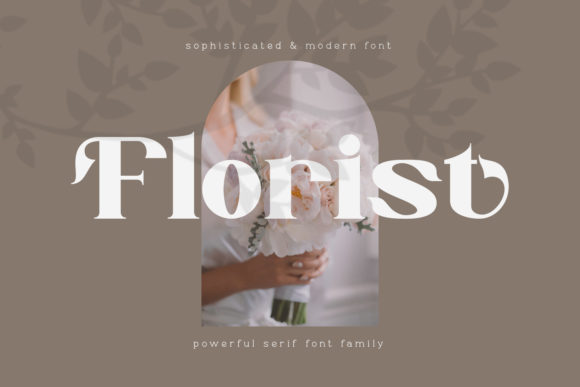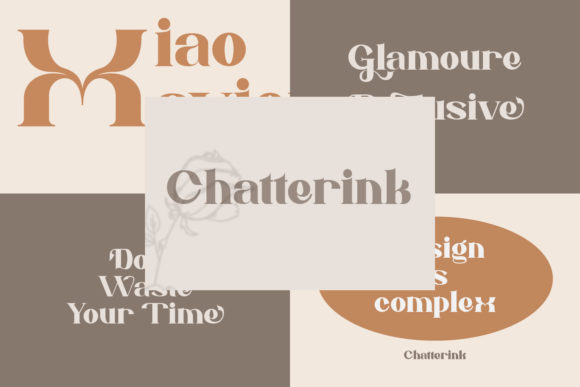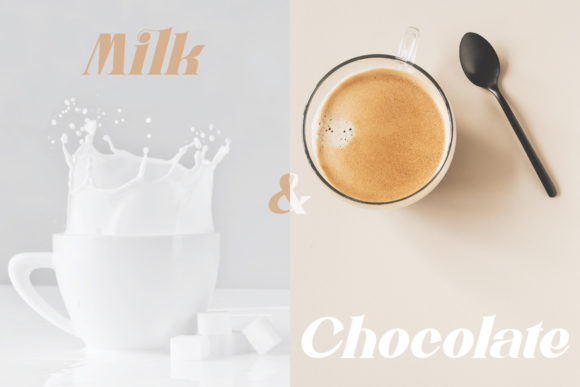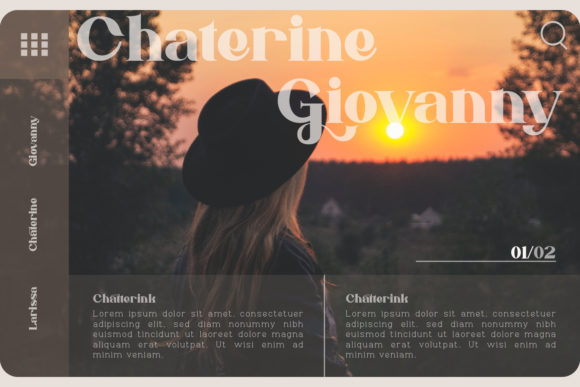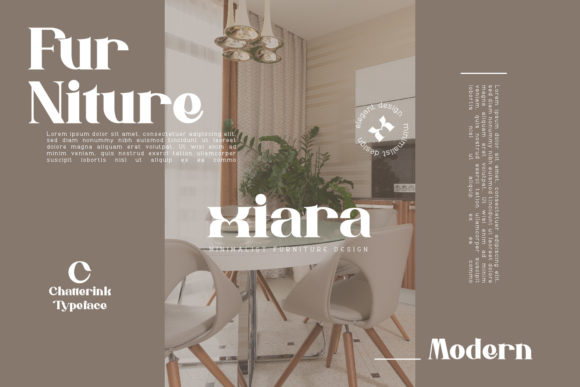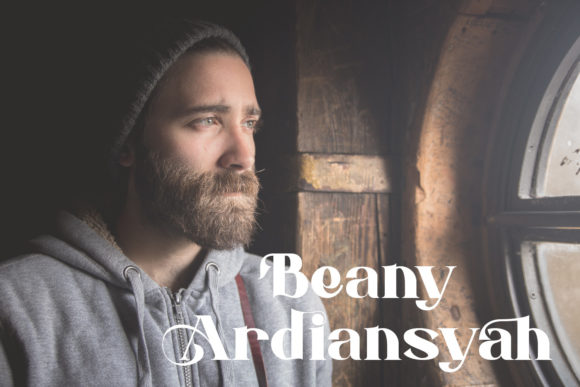
Unleash Your Creativity with the Chatterink Font
Have you ever stared at a blank canvas, waiting for inspiration to strike? The blank page stares back, taunting you with its emptiness. But what if you had the perfect tool to bring your ideas to life? For designers and creatives, finding the right font can be the key to unlocking a world of possibilities.
Enter the Chatterink Font, a cool and trendy serif font that’s designed to add a touch of sophistication to any project. With its PUA encoding, you’ll have access to a wealth of amazing glyphs and ligatures that will take your designs to the next level. Whether you’re working on a logo, brochure, or website, the Chatterink Font is the perfect addition to your toolkit.
Key Features of Chatterink Font
- Font Family: Chatterink Font is a unique, hand-drawn font that combines elements of art and typography.
- Character Count: The font includes 350 characters, including uppercase and lowercase letters, numbers, and punctuation marks.
- Unique Characteristics: The font features intricate, swirling patterns and ornaments, making it perfect for creative and artistic designs.
Designer Review: Chatterink Font
Overall, I’d say that the Chatterink Font has some great qualities that make it a solid choice for certain projects, but it also has some limitations that might make it less desirable for others. ✨ Let’s dive in!
- The font’s playful and modern feel makes it perfect for digital products, such as apps, websites, and social media platforms.
- The font’s high x-height and open apertures give it a friendly and approachable vibe that works well for body text.
- The font’s wide range of weights and styles makes it versatile and easy to use in different design contexts.
- The font’s letterforms can sometimes feel a bit too rounded and soft, making it less suitable for projects that require a more serious or formal tone. ⚠️
- The font’s lack of small caps and oldstyle figures might be a drawback for designers who require these features for their projects.
- The font’s kerning and spacing can be a bit off in certain combinations, which might require additional tweaking in design software.
The Chatterink Font is a solid choice for designers who need a modern and playful font for digital projects. While it has some limitations, its versatility and wide range of weights and styles make it a great addition to any designer’s toolkit. With a bit of tweaking and customization, the Chatterink Font can help designers create visually appealing and effective designs.
Tips for Getting the Most Out of Chatterink Font
Use Chatterink Font for creative and playful designs, such as:
- Social media graphics
Experiment with different font sizes, colors, and styles to create a unique look.
Alternatives to Chatterink Font for Designers
Great Vibes is a modern script font that is perfect for creating a playful and energetic feel in your designs. It is ideal for use in social media graphics, advertising, and packaging. Great Vibes is a more elegant and refined alternative to Chatterink Font, making it suitable for a wider range of design applications.
Comparison: Great Vibes has a more polished look compared to Chatterink Font, with smoother lines and a more consistent flow. It is also more versatile and can be used in a variety of design contexts.
Alex Brush is a elegant script font that is perfect for creating a sophisticated and refined feel in your designs. It is ideal for use in branding, packaging, and editorial design. Alex Brush is a more formal and elegant alternative to Chatterink Font, making it suitable for high-end design applications.
Comparison: Alex Brush has a more refined and sophisticated look compared to Chatterink Font, with intricate details and a more formal feel. It is also more suitable for use in high-end design contexts.
Can I customize the Chatterink Font for my specific design project?
Yes, the Chatterink Font is fully editable and customizable. You can use font editing software like FontLab or FontForge to modify the font’s glyphs, spacing, and other characteristics to suit your design needs. However, please note that any customizations may affect the font’s license and usage terms.